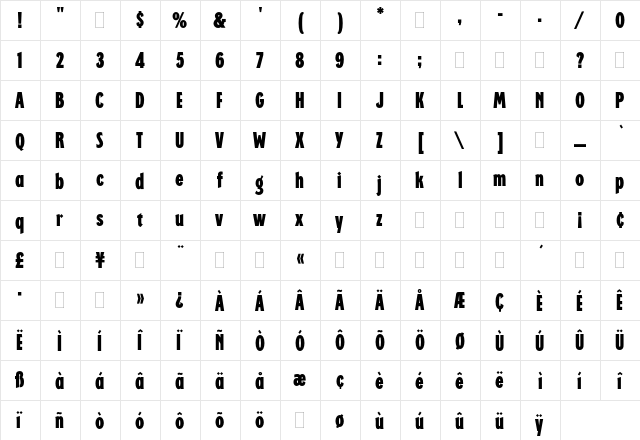
Regatta Condensed Plain
Design Context for Regatta Condensed Typeface
Regatta Condensed offers clean, dependable letterforms without strong stylistic allegiance, making it a practical choice for designers who need flexibility. The condensed width makes it efficient for tight spaces without sacrificing legibility.